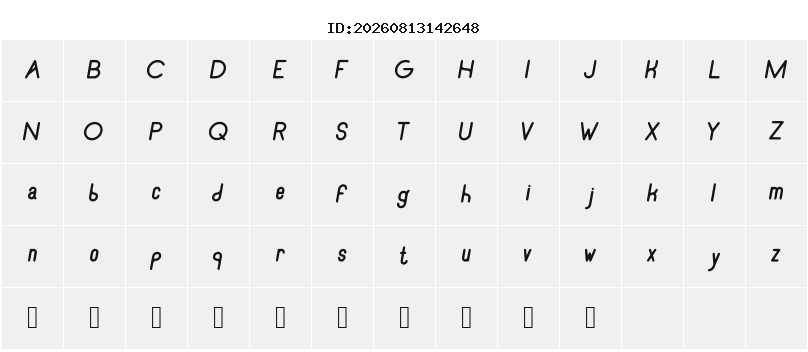
• Font Name: RecinosScript BoldItalic
• Font Style: BoldItalic
• Full Font Name: RecinosScript BoldItalic Regular
About RecinosScript BoldItalic.ttf
RecinosScript BoldItalic.ttf is a modern, elegant sans-serif font designed for ultimate readability and visual harmony. Perfect for branding, headlines, web design, and print materials.